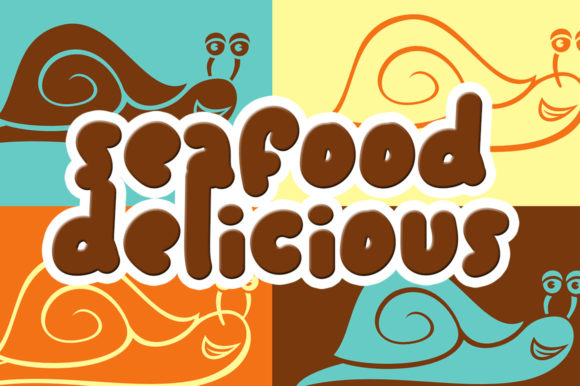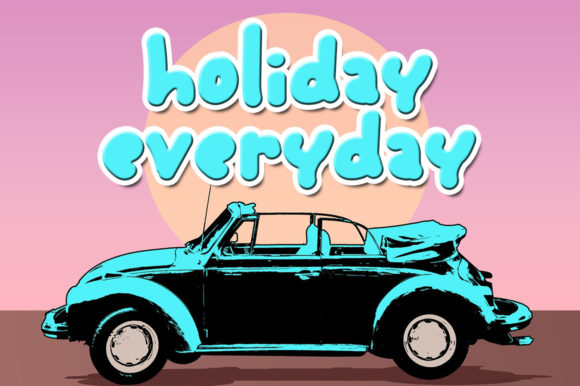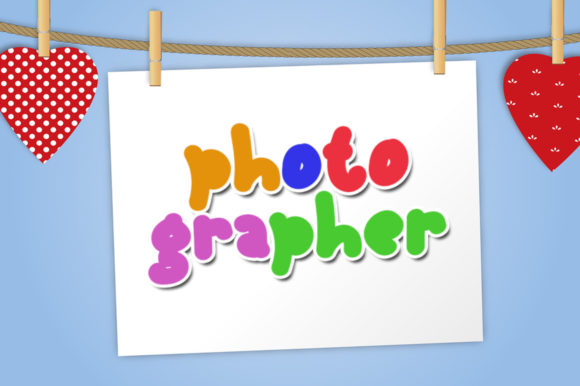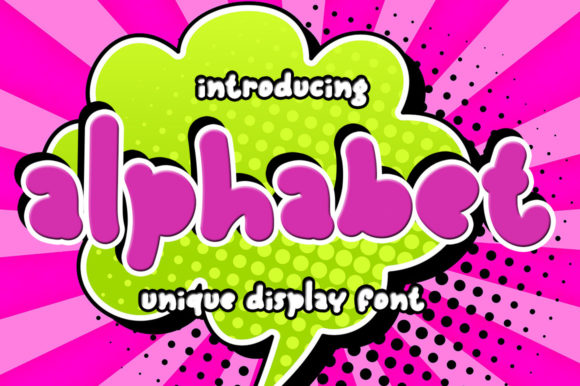
The Alphabet Font: A Bubbly and Chic Addition to Your Design Arsenal
I’ll never forget the time I was working on a project for a client who needed a font that was both playful and professional. I had spent hours scouring the internet for the perfect font, but nothing seemed quite right. That was when I stumbled upon the Alphabet Font. Its bubbly and chic lettering immediately caught my eye, and I knew I had found the one. In this article, I’ll share my experience with the Alphabet Font, its features, and how to make the most of it in your designs.
A Personal Review of Alphabet Font
• ✨ Bubbly and Chic Design: The Alphabet Font is a beautifully designed font that adds a touch of playfulness to any project.
• ✅ Versatility: It’s suitable for a wide range of applications, including book texts, documentation, business reports, business correspondence, magazines, newspapers, posters, advertisements, multimedia, and corporate design.
• ✅ Easy to Read: The font is clear and easy to read, making it perfect for body text and headings.
While the Alphabet Font is an excellent choice for many projects, there are a few things to keep in mind:
• 🤔 Limited Use in Serif-Heavy Designs: The Alphabet Font is a sans-serif font, which may not be the best choice for designs that heavily feature serif fonts.
• ⚠️ Not Suitable for Very Small Text: While the font is clear and easy to read, it may not be the best choice for very small text, such as captions or fine print.
The Backstory of Alphabet Font
The Alphabet Font was designed by a team of typographers who wanted to create a font that was both fun and functional. Inspired by the classic fonts of the past, they set out to create a font that would be perfect for a wide range of applications. With its bubbly and chic design, the Alphabet Font is sure to bring a touch of personality to any project.
Font Name Alphabet Font
Author Mr.Soon Design
Q: What is the Alphabet Font?
A: The Alphabet Font is a bubbly and chic lettered display font that’s suitable for a wide range of applications.